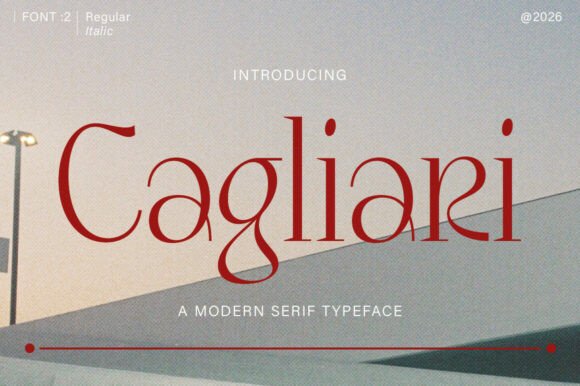
The Cagliari Font: A Modern Serif Masterpiece for Creative Professionals
As a designer, I’ve had my fair share of frustrating moments while working on a project. One particular instance that stands out was when I was tasked with creating a high-end editorial piece for a luxury brand. I spent hours scouring the internet for the perfect font, only to come up empty-handed. That was until I stumbled upon the Cagliari font, a game-changing modern serif design that has since become a staple in my design toolkit.
A Personal Review: What I Love About Cagliari
The Cagliari font has won me over with its unique blend of traditional letterforms and avant-garde flair. Here are a few things that I love about it:
- ⨠Sharp serifs that add a touch of sophistication to any design
- ā Fluid curves in letters like the āgā and āaā that give it a fresh, modern feel
- š„ Perfect for high-end web design and print media, thanks to its classic legibility and artistic expression
- š” Works beautifully in both regular and italic weights, allowing for dynamic hierarchy in various design applications
While the Cagliari font is a powerhouse of modern serif design, there are a few quirks to be aware of:
- ā ļø May not be suitable for body text due to its sharp serifs and modern aesthetic, which may be overwhelming in large blocks of text
The Designer Inspiration Behind Cagliari
While the true story behind Cagliari’s creation may be unknown, it’s easy to imagine a designer driven by a passion for modern typography and a desire to push the boundaries of traditional serif design. Perhaps they sought to create a font that would blend the best of classic legibility with the excitement of avant-garde flair.
| What makes Cagliari a good choice for high-end design? | Cagliari’s sharp serifs, fluid curves, and classic legibility make it perfect for high-end web design and print media. |
| Can I use Cagliari for body text? | While possible, Cagliari’s sharp serifs and modern aesthetic may be overwhelming in large blocks of text. It’s best suited for headlines and titles. |
| What type of projects is Cagliari best suited for? | Cagliari shines in editorial design, luxury branding, architectural portfolios, and museum exhibition posters. |